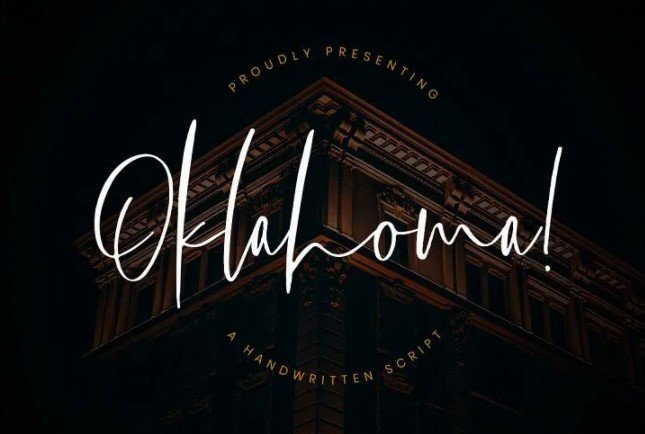
Presenting the premier handwritten typeface, Oklahoma Handwritten Font, featuring natural and aesthetically pleasing handwritten characters. This font can be paired with others to craft eye-catching and attractive post designs and various other projects.
It has brilliant attractive strokes of its characters, that will make your designs gorgeous and brilliant. It contains ttf and otf format that is combined in zip format.
The font has a natural and stylish flow of handwritten characters and its swashes, which is perfectly fine for pairing use with back to the future for making personal branding covers, posters, banners and lots of other projects.
Of course you can use the Oklahoma Handwritten for your logo as well as all other graphic designs projects.